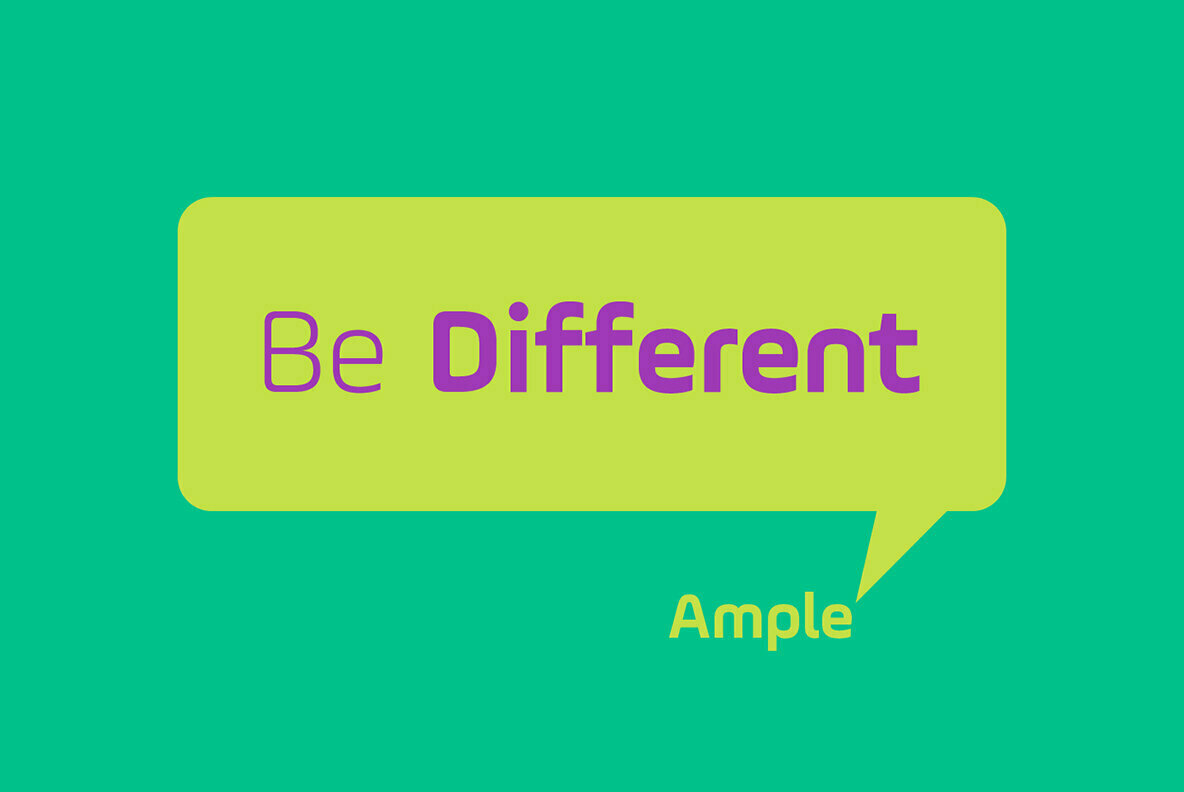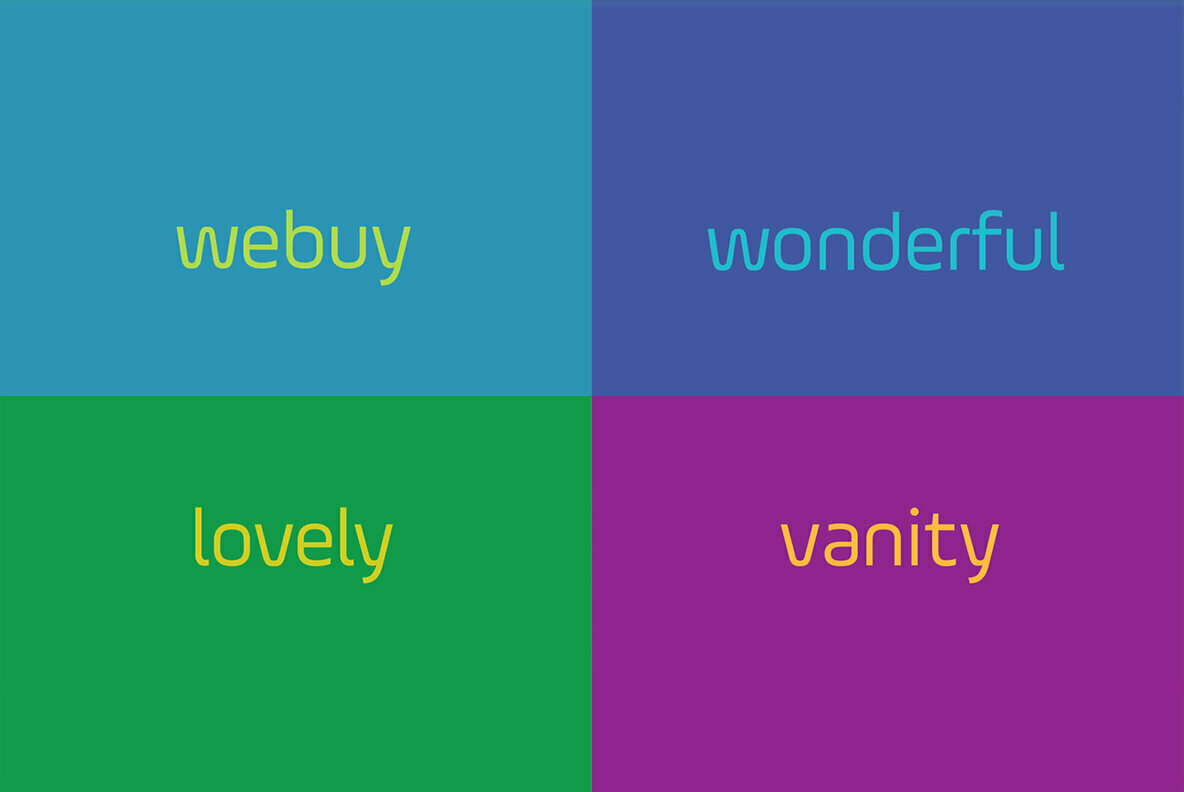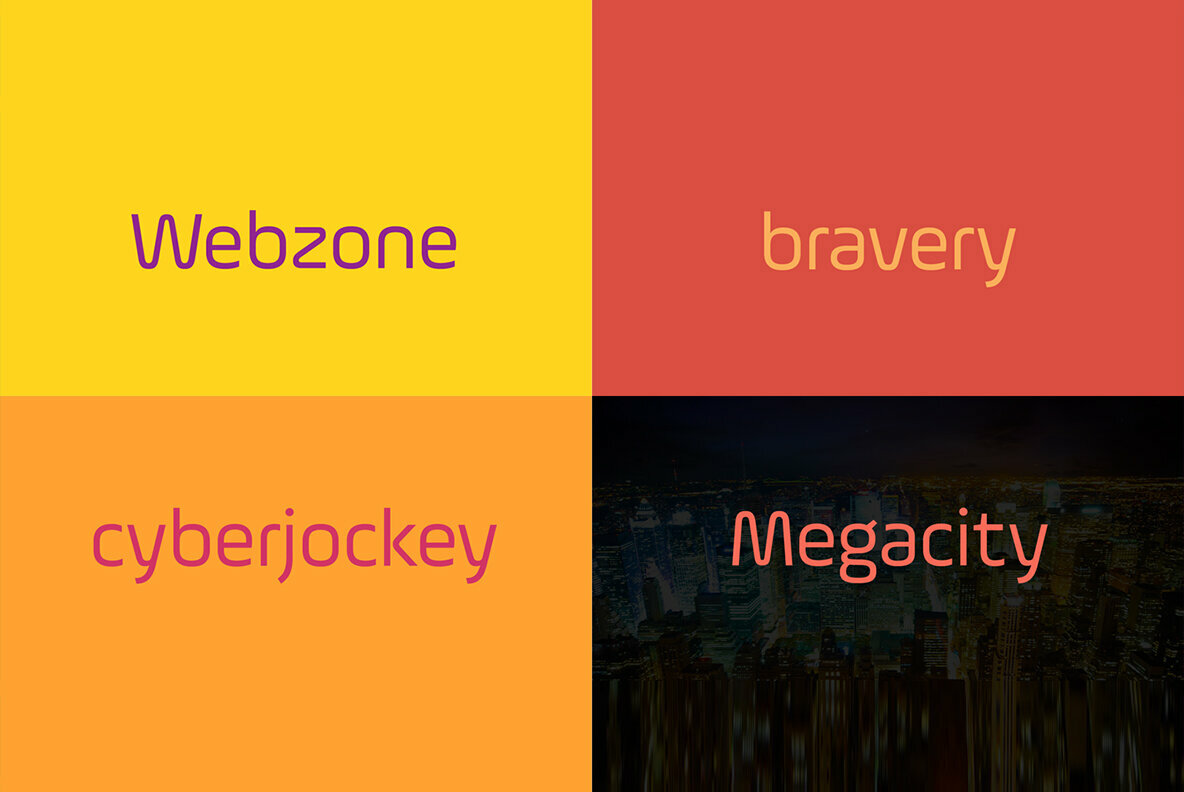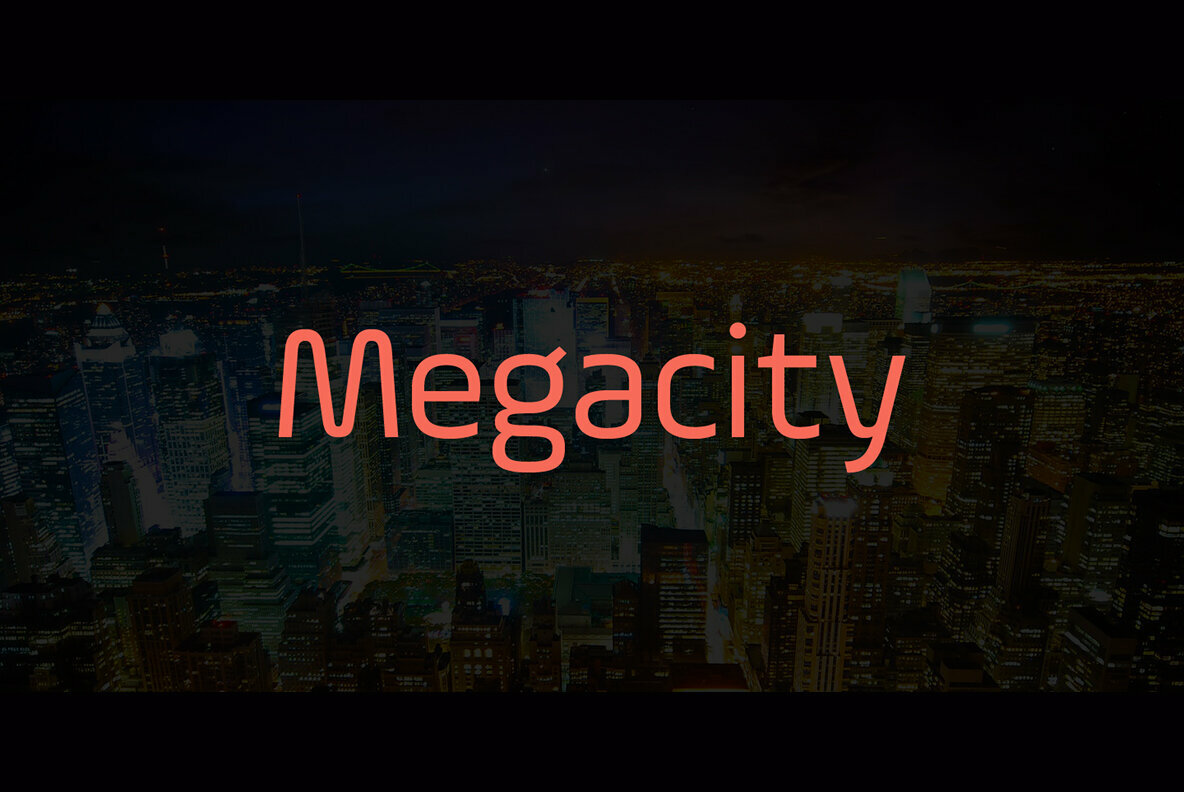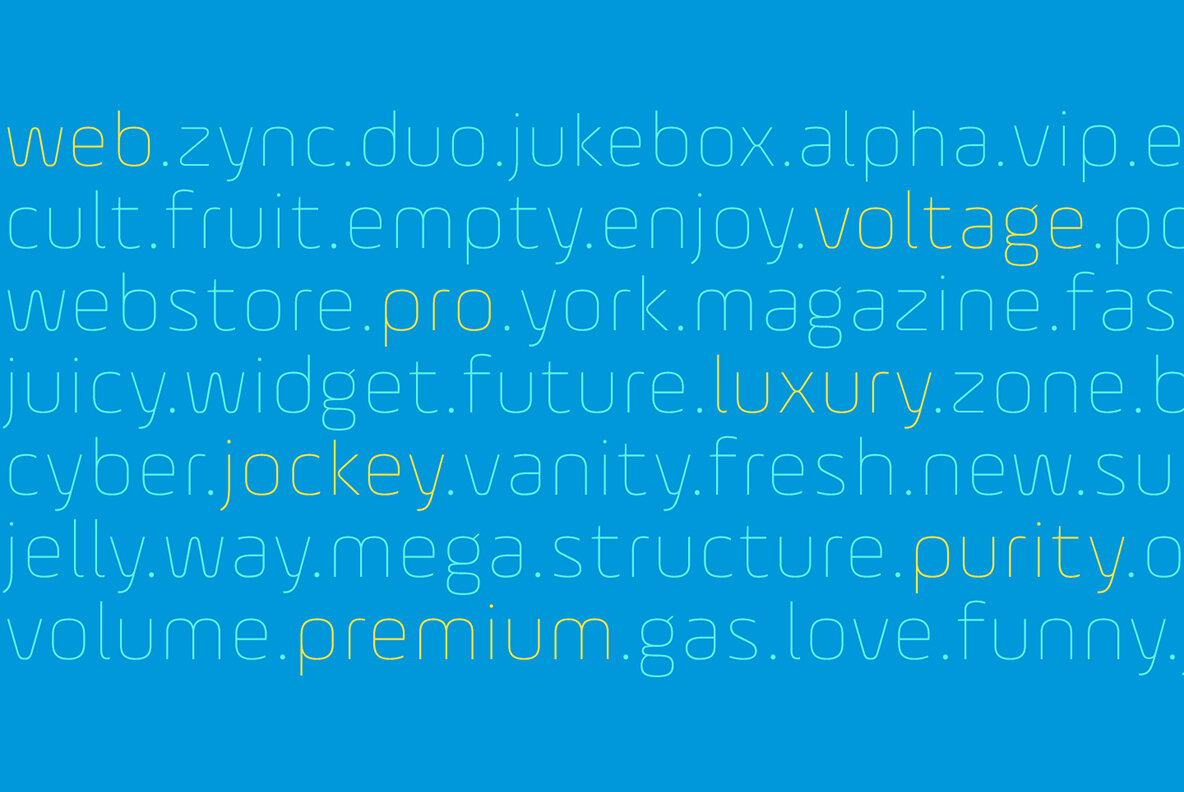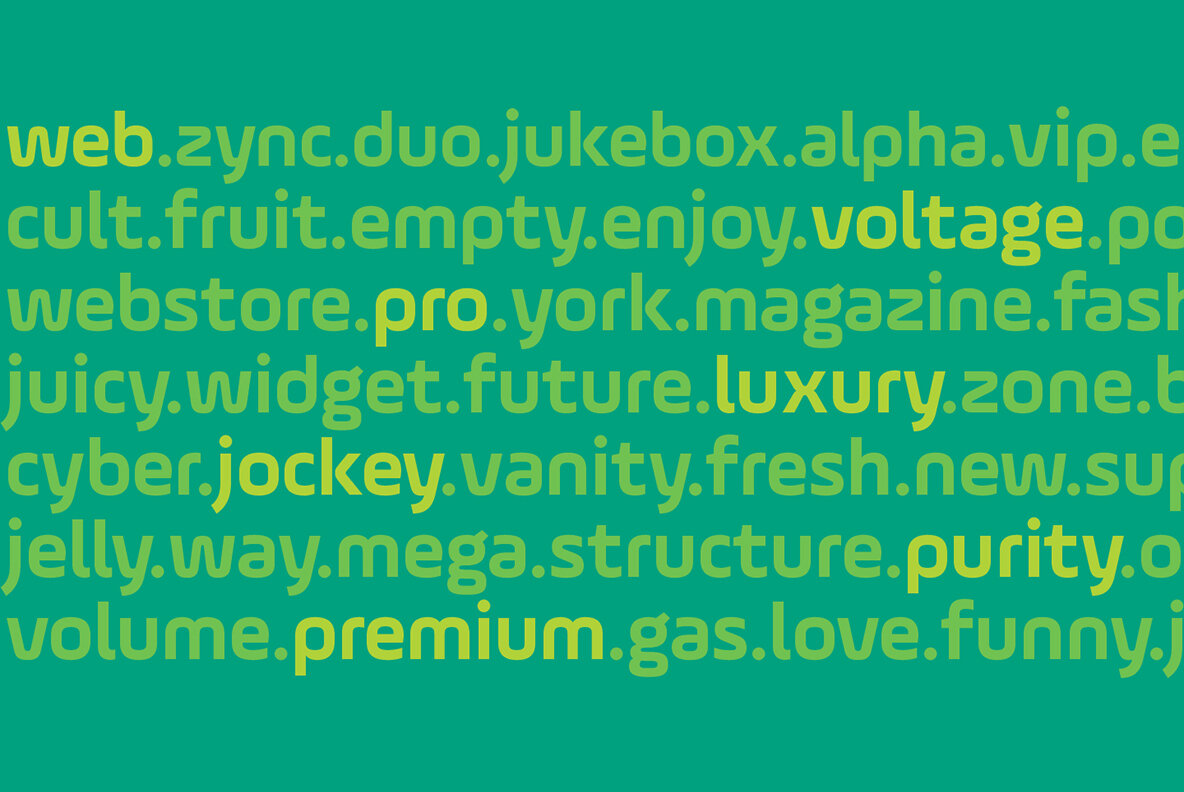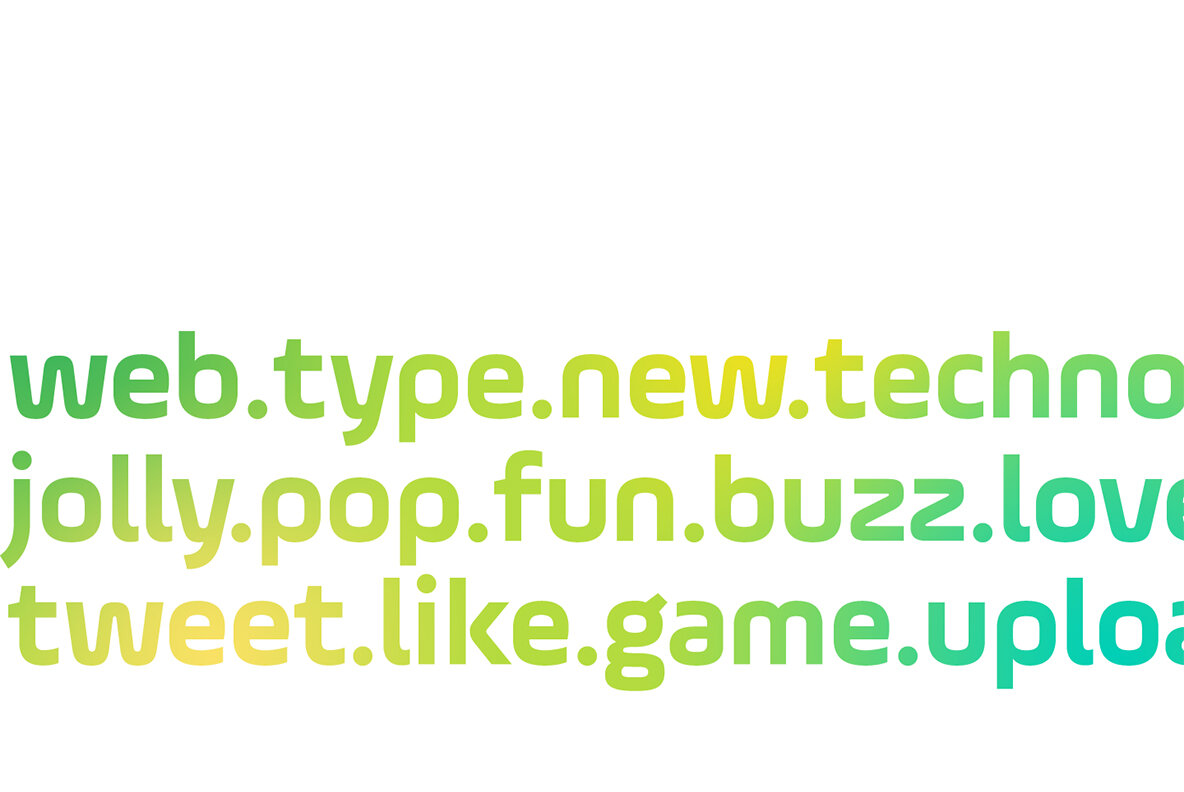
Ample Font
Ample is a display type family, optical mono linear and a bit squarish in nature. It has a smooth curve instead of the sharp angle formed by the junction of two strokes, which is a prominent feature of its design.
It has been designed to be a little eye-catching yet legible. It has clear and distinguishable letterforms, which help to elaborate and emphasize the message. It is graphically strong and commands the viewer's attention. The overall appearance of type is suitable in setting it as heading, title, headline, etc.
The type family consists of six weights viz. Thin, ExLight, Light, Regular, Medium, and Bold. Considering the nature of this type family, italics have been excluded.
Ample is designed by Aakash Soneri in the period between 2013 and 2014.